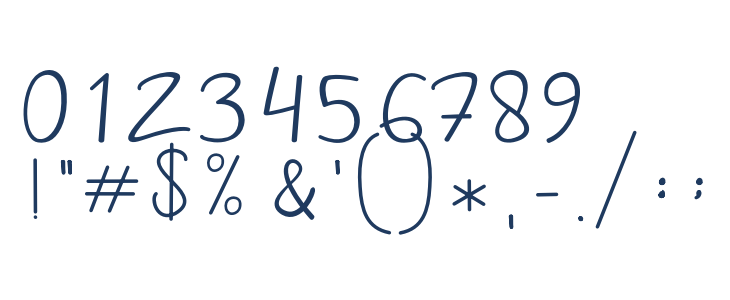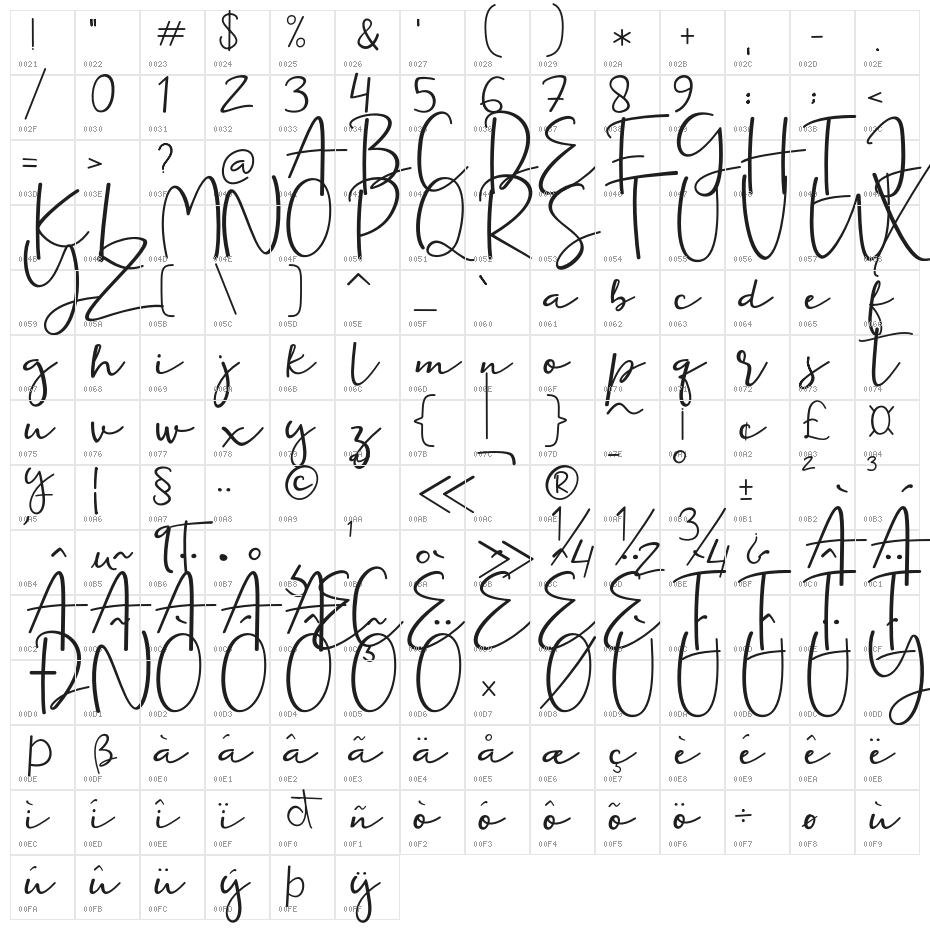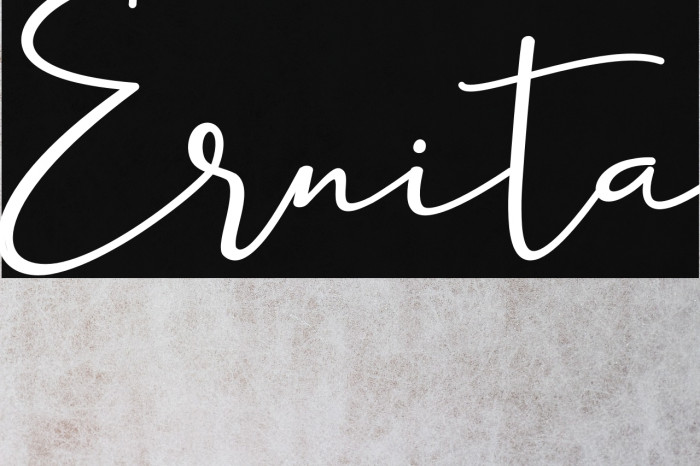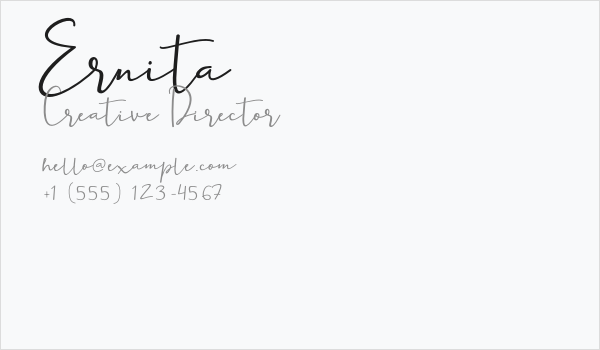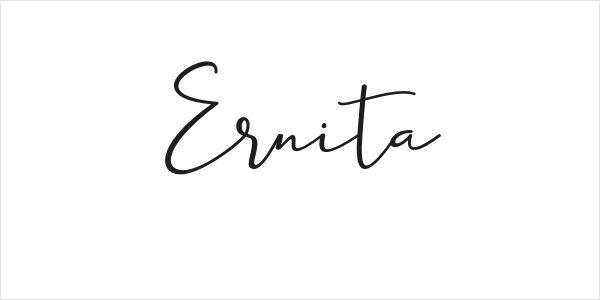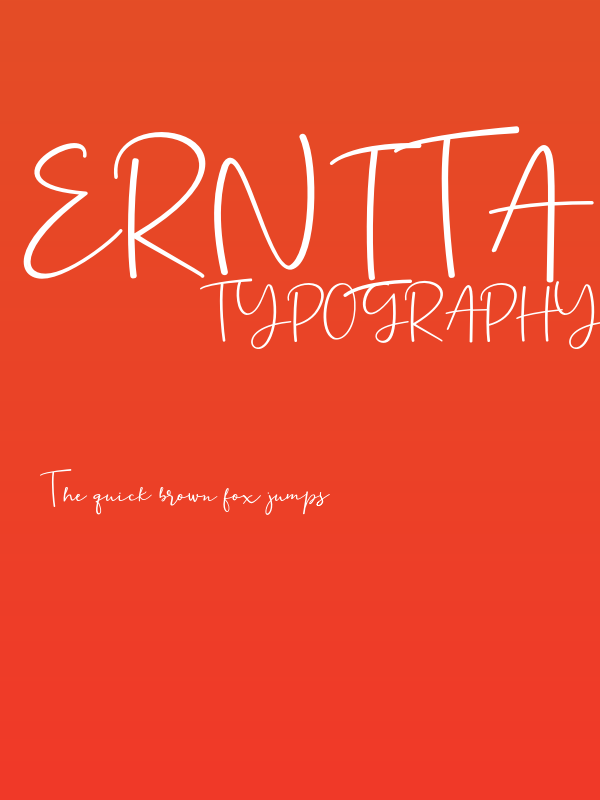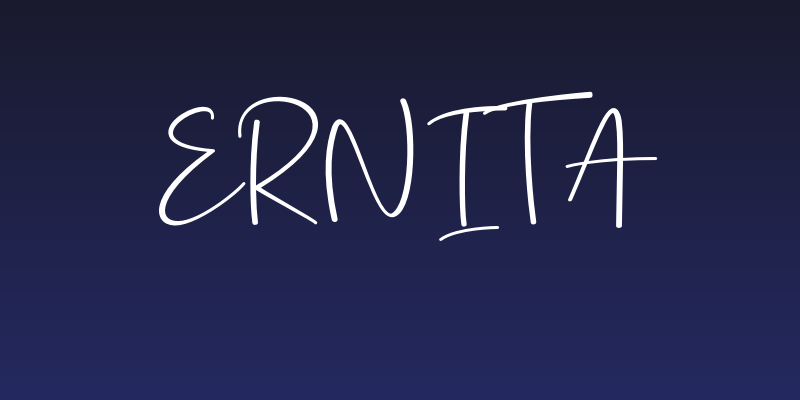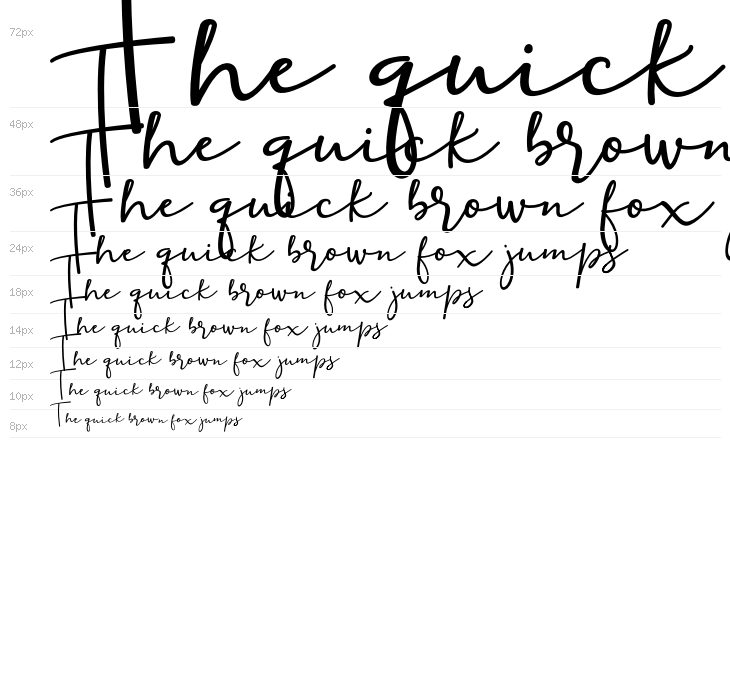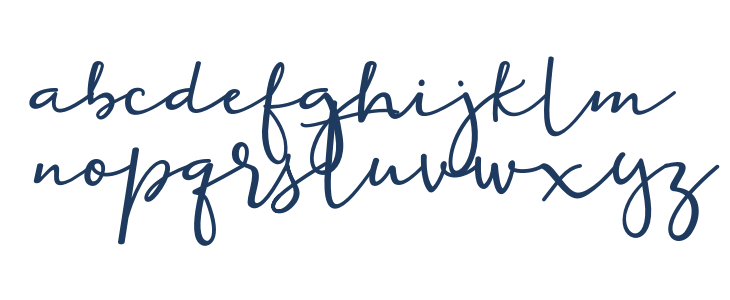
Ernita Font
Ernita Description
This font features a lively and dynamic handwritten style, characterized by its fluid and organic strokes. The uppercase letters exhibit a playful yet elegant appearance, with varying heights and a slight slant that adds to its casual charm. The lowercase letters maintain a consistent flow, with some letters extending slightly below the baseline, enhancing its handwritten feel. Numbers are clear and legible, maintaining the same playful style as the letters. Special characters are well-integrated, complementing the overall aesthetic. The font's unique personality makes it suitable for creative and informal projects.